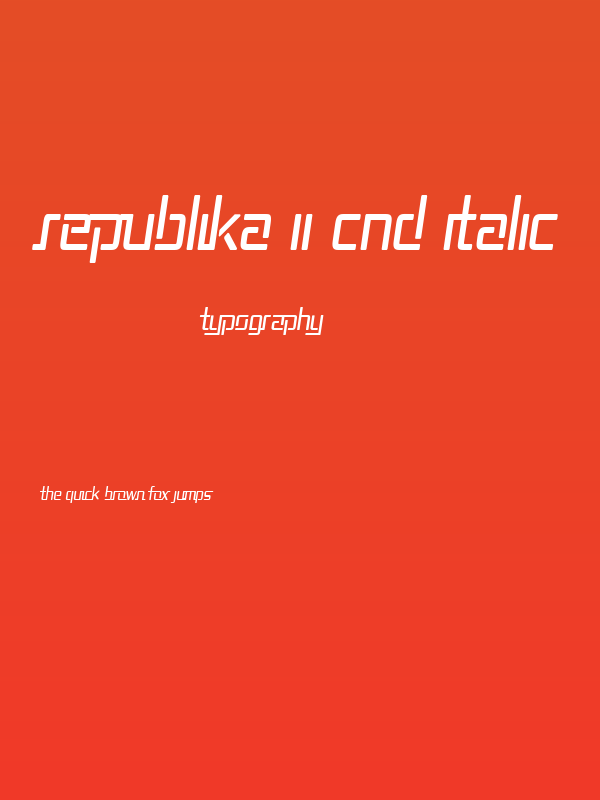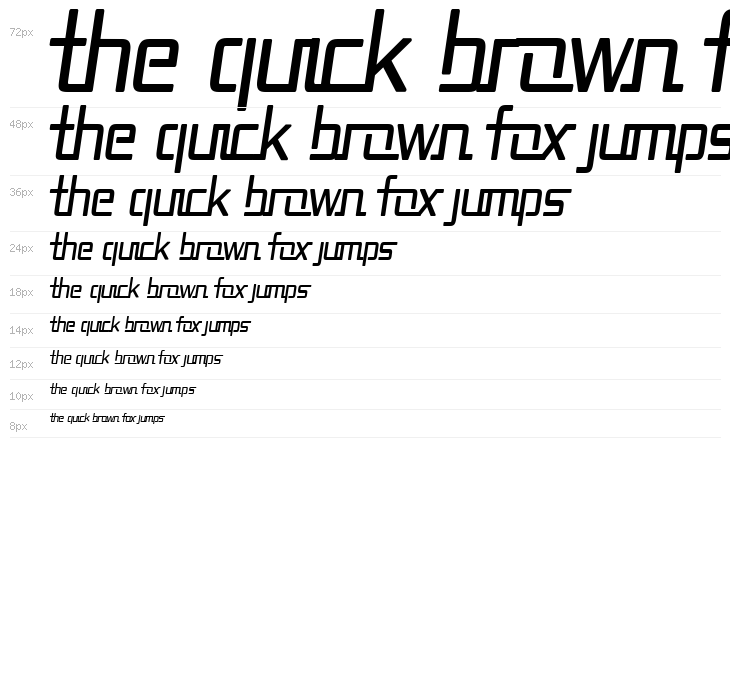
Republika II Cnd Italic Font
Republika II Cnd Italic Description
This font exhibits a sleek, modern design with a condensed and italicized style. The characters are elongated and feature a consistent stroke width, giving it a streamlined and futuristic appearance. The angular and geometric shapes of the letters contribute to its dynamic and energetic feel. The font maintains a uniform height across both uppercase and lowercase letters, enhancing readability while preserving its unique aesthetic. The numerals and special characters are designed to match the overall style, ensuring a cohesive look across all text elements.
| Use Case | Logos, Headlines, Branding |
| Proposed Projects | Ideal for technology branding, sports team logos, modern advertising campaigns, and futuristic design projects. |